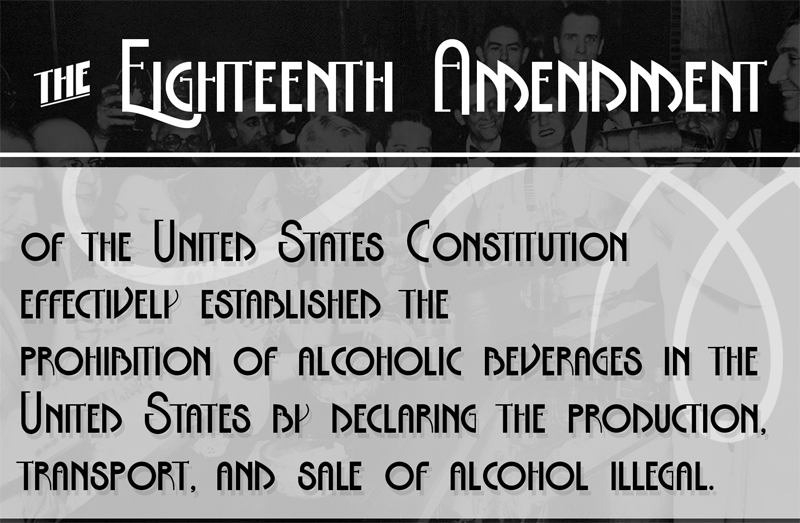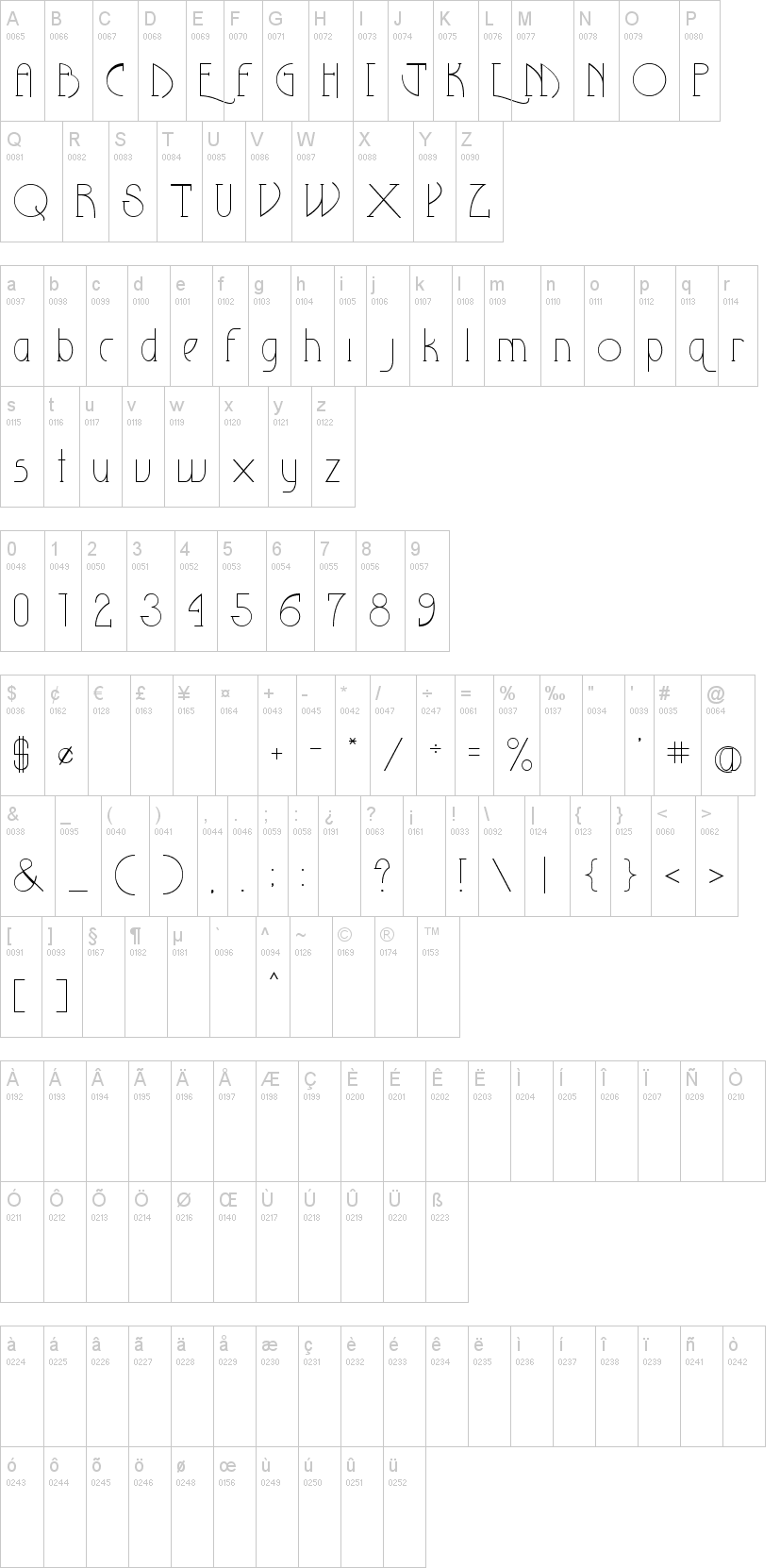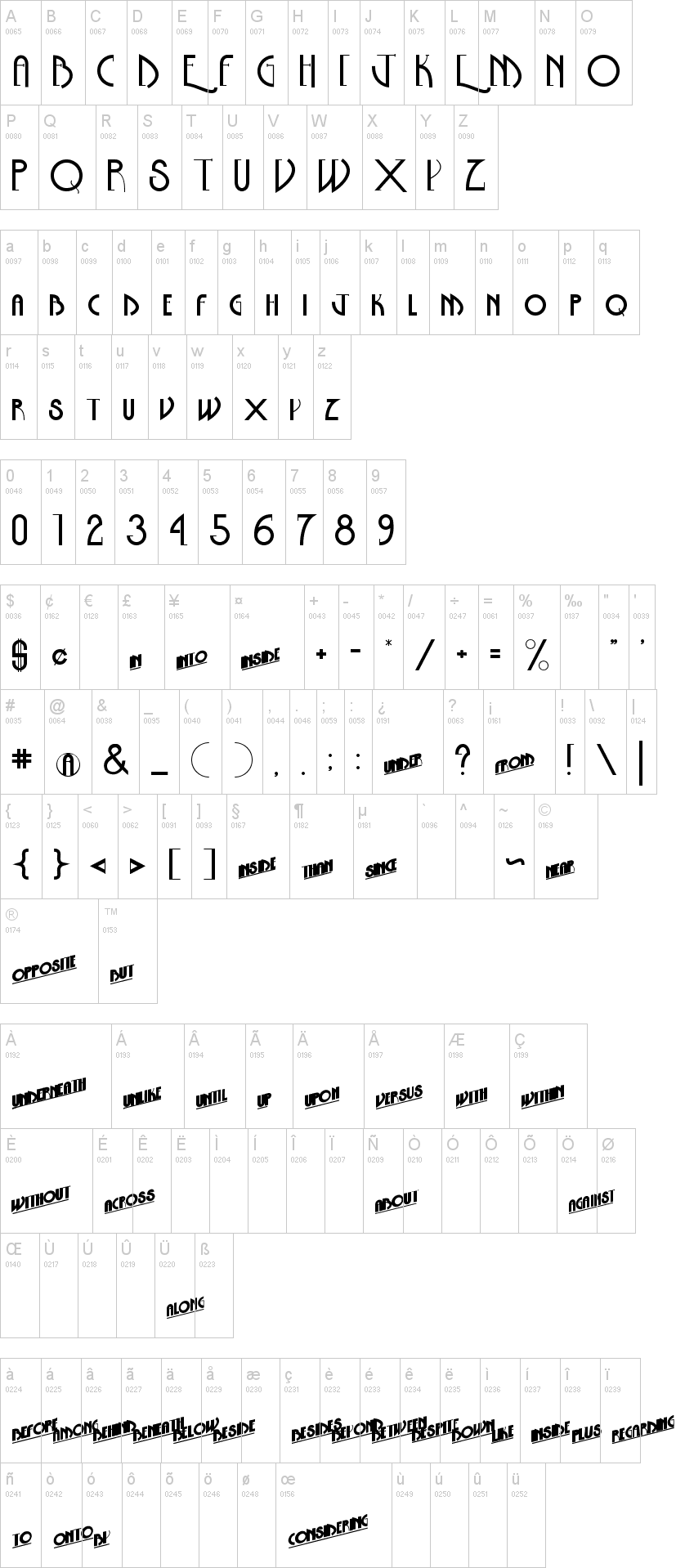
TheEighteenthAmendment-Light.ttfNote of the authorThis font is named "The Eighteenth Amendment" because I wanted it to have a 1920's prohibition/speakeasy/art deco vibe.
The Bold Caps version of this font contains 81 extra glyphs that are a collection of small, stylized common words and prepositions that can be used for artistic effect.